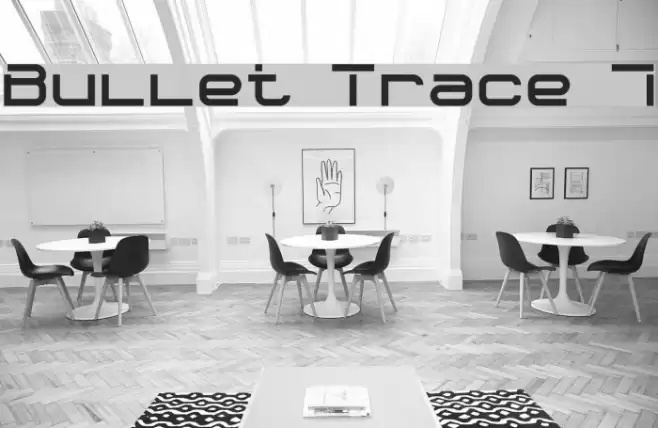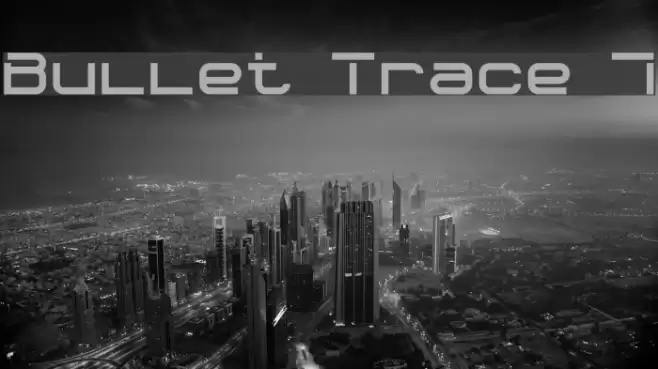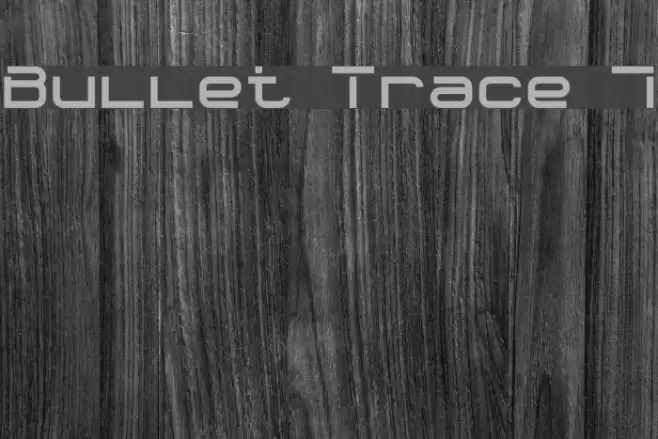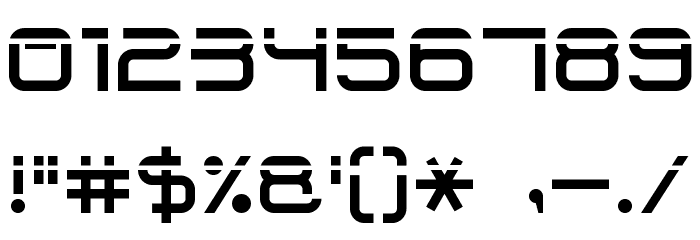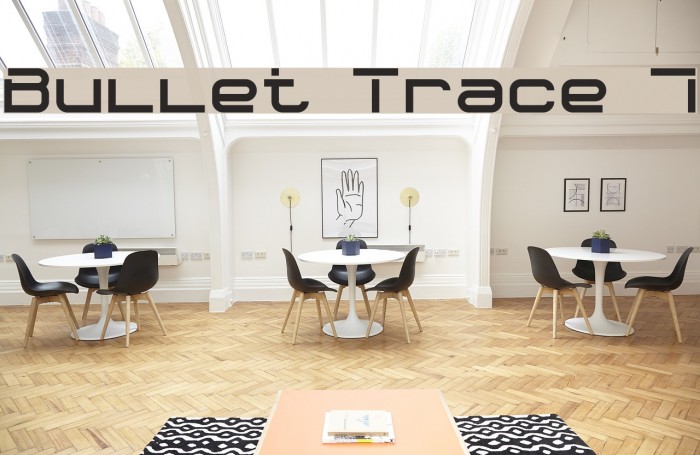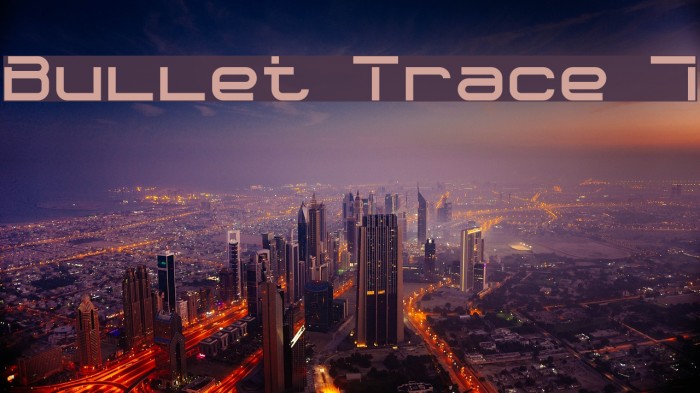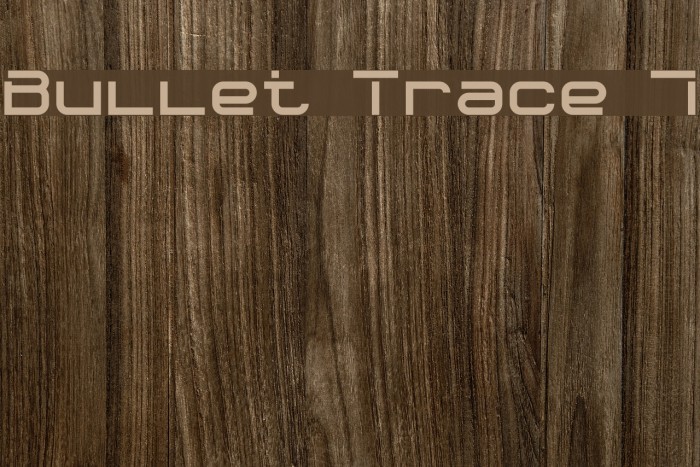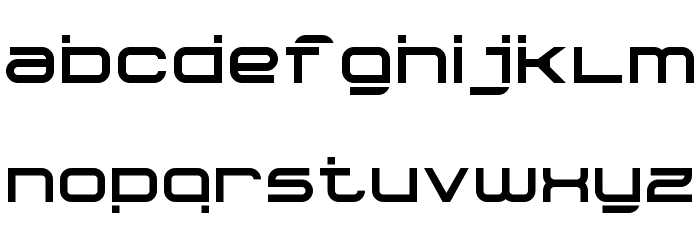
Bullet Trace 7 Font
Bullet Trace 7 Description
This font exhibits a modern, futuristic style with a geometric and technical appearance. The characters are constructed with a combination of straight lines and rounded edges, creating a unique and distinctive look. The uppercase and lowercase letters maintain a consistent design, with some characters featuring disconnected segments that add to the digital aesthetic. The numerals and special characters follow the same design principles, ensuring uniformity across all glyphs. The font's structure is clean and minimalistic, making it suitable for projects that require a contemporary and tech-savvy feel.
A modern, geometric font with a futuristic and technical design from Uncategorized fonts.
- Proposed Projects: Ideal for technology branding, digital interfaces, video game titles, and sci-fi themed projects.